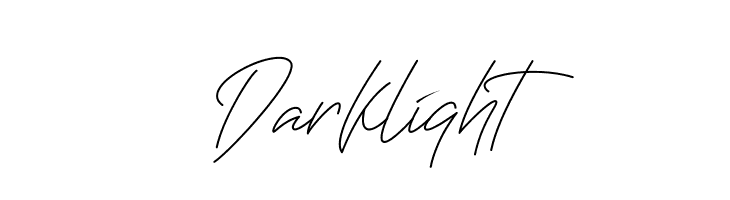
A fluid, cursive font with a modern, handwritten style.
A stylish and flowing script font with elegant cursive strokes.
A smooth, flowing script font with a casual elegance.
An elegant, cursive script font with flowing lines and sophisticated style.
A graceful, cursive handwritten font with elegant, flowing strokes.